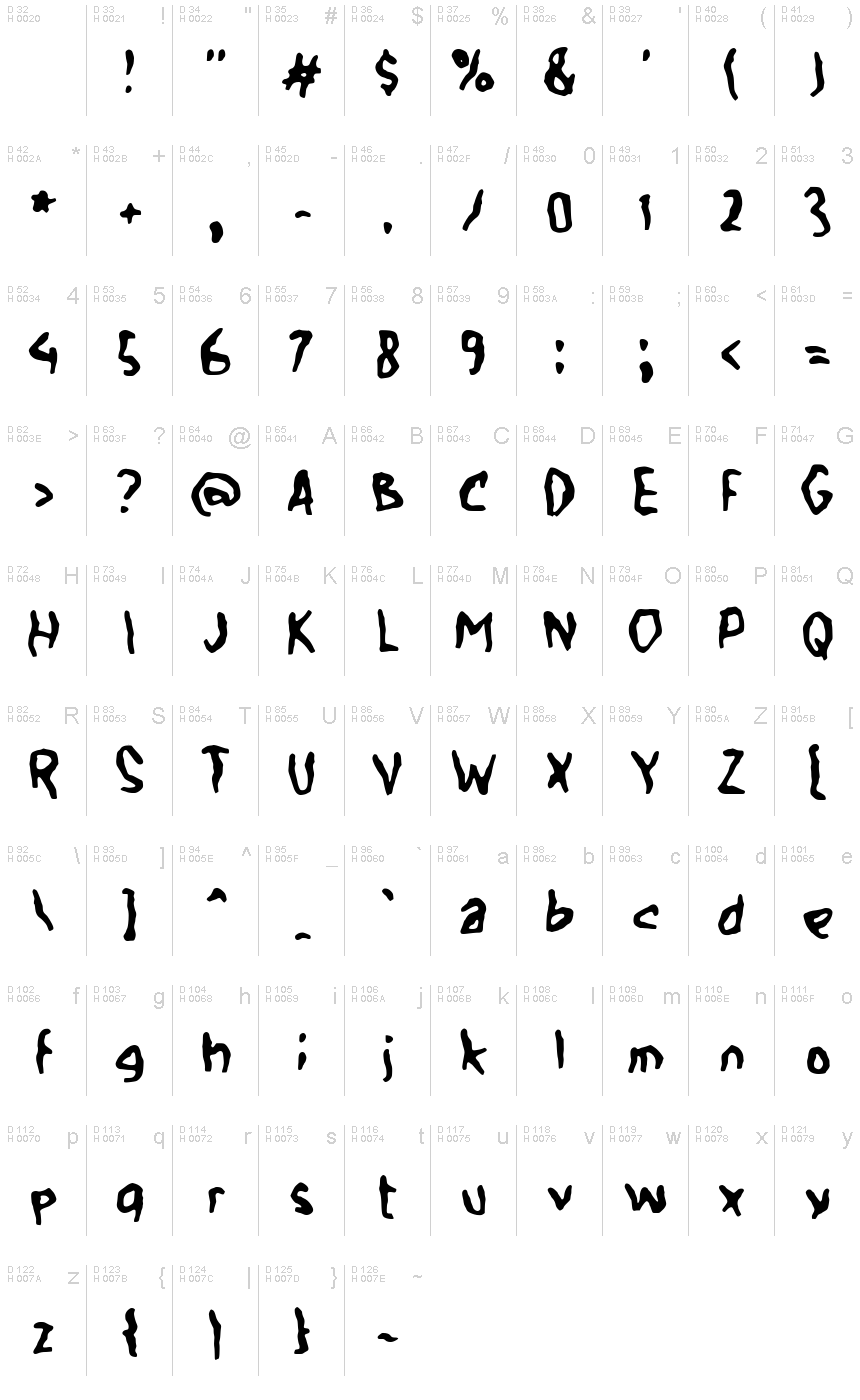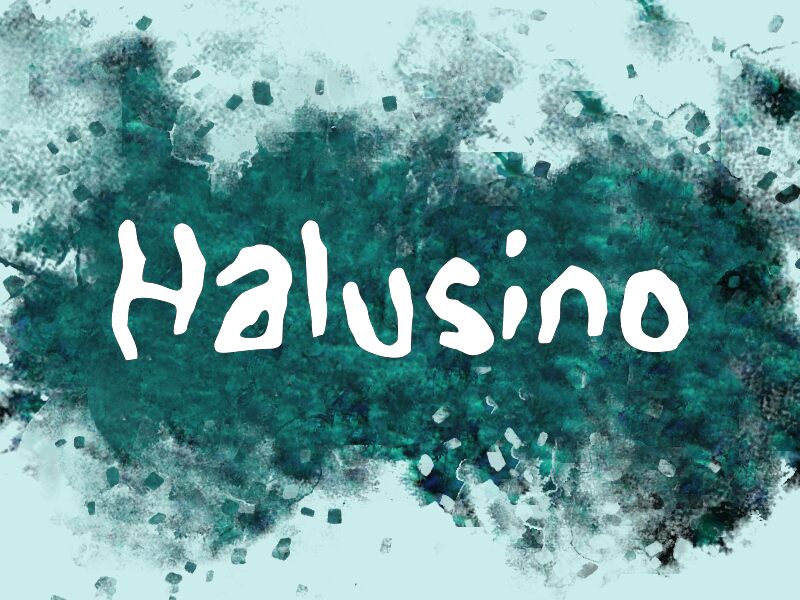
Halusino
Halusino font by Wep invites you into a world of playful irregularity and artistic flair. Its casual style exudes an approachable and friendly mood, making it a versatile free display font choice for various design applications where an informal vibe is desired.
Use Halusino for book covers, album art, logos, social media graphics, digital interfaces, posters, T-shirts, advertisements, packaging designs or magazine covers. Enhance branding projects with its unique charm in both print and digital mediums.